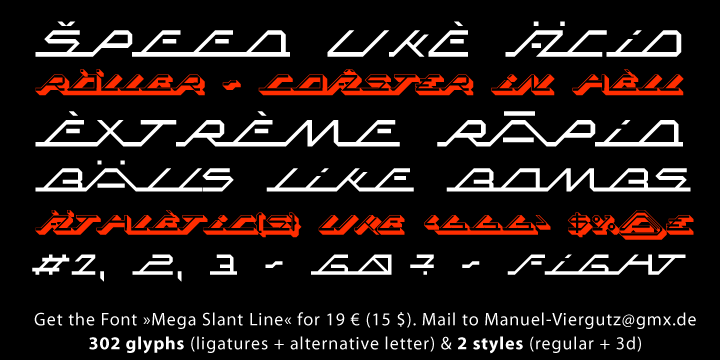
Preview and download Mega Slant Line Font. Created by Manuel Viergutz | Typo Graphic Design in Techno Sci-fi styles with Free for personal use license.
Headline Font / Display Font / Sci-Fi Font "MEGA SLANT LINE" OpenType Font with 302 glyphs - alternative letters and ligatures (with accents & €) & 2 styles (regular & 3d) INFO If you want to use this font for commercial projects, please contact me: manuel-viergutz[at]gmx.de or donate an amount greater-than-or-equal EUR 15/$ 19 (for commercial licence). I also appreciate it if you send me links/images of your (non)-commercial work featuring this font. |